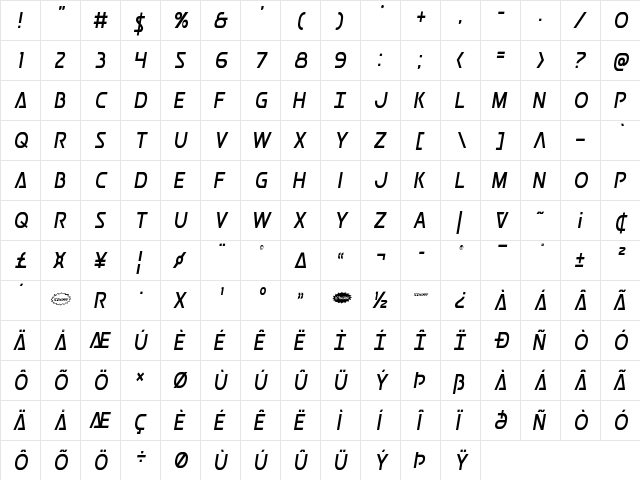
Postmaster Condensed Condensed
Design Context for Postmaster Condensed Typeface
Postmaster Condensed offers clean, dependable letterforms without strong stylistic allegiance, making it a practical choice for designers who need flexibility. The condensed width makes it efficient for tight spaces without sacrificing legibility.